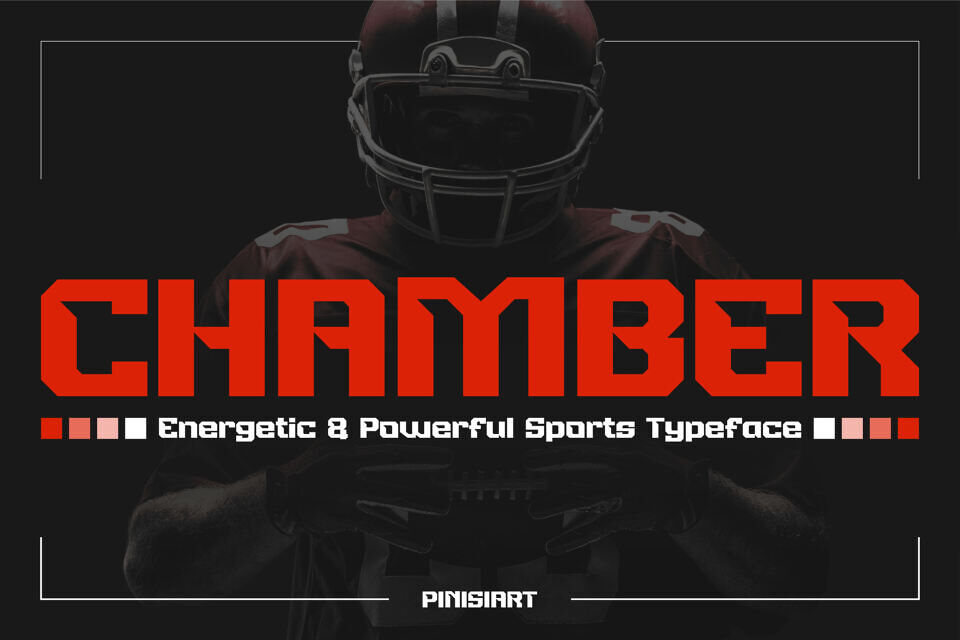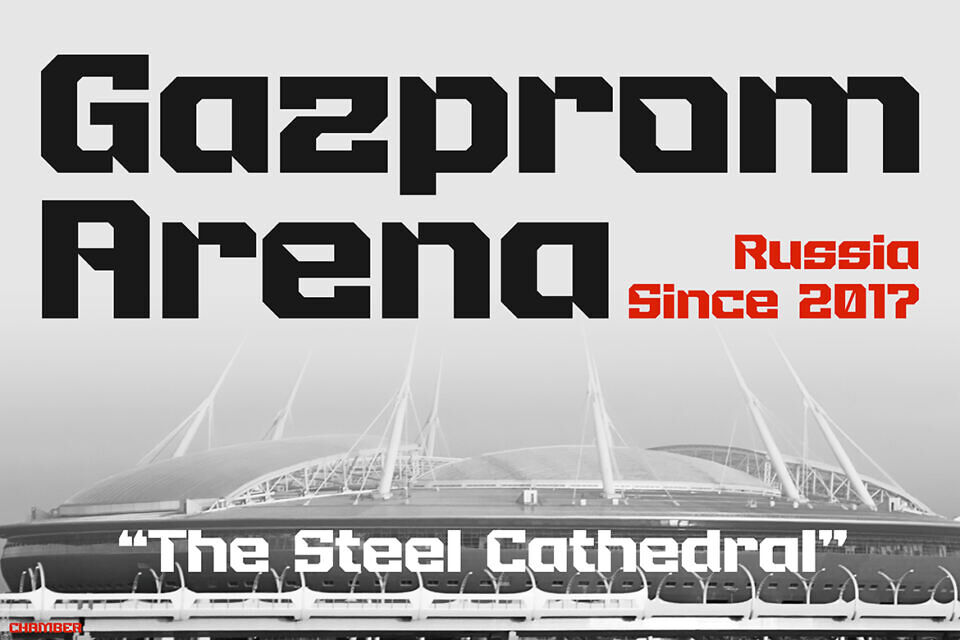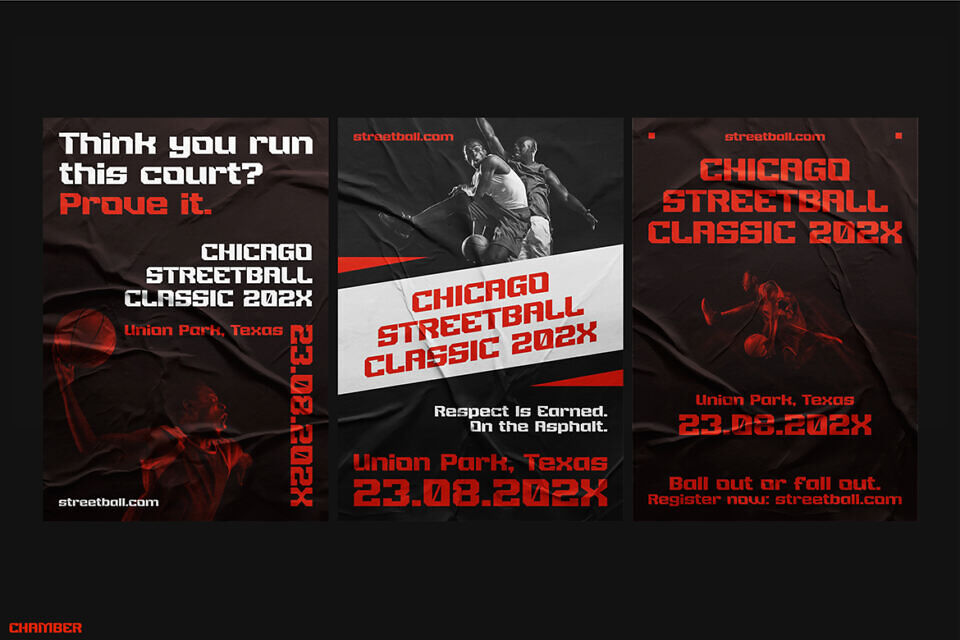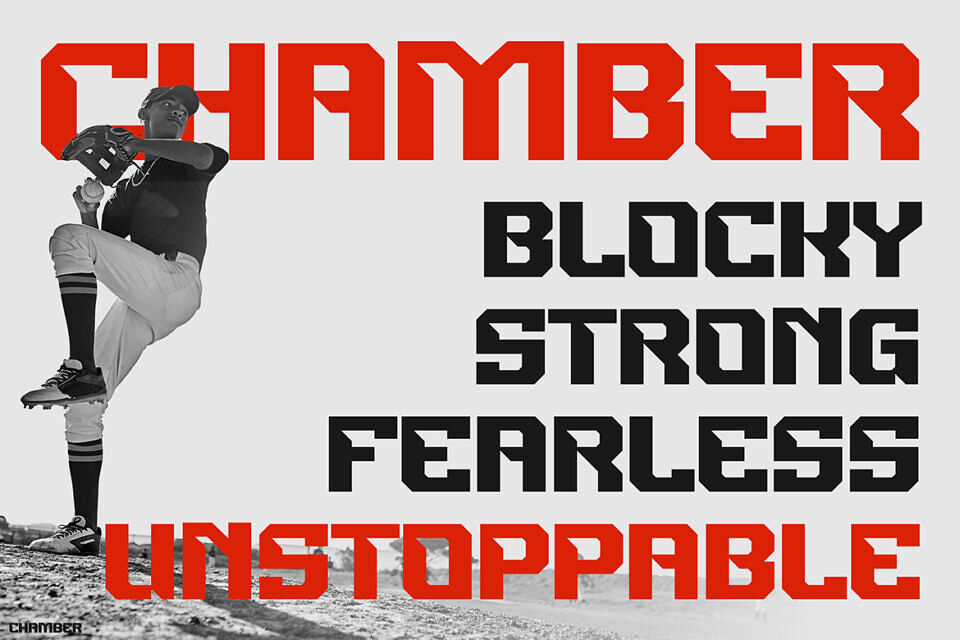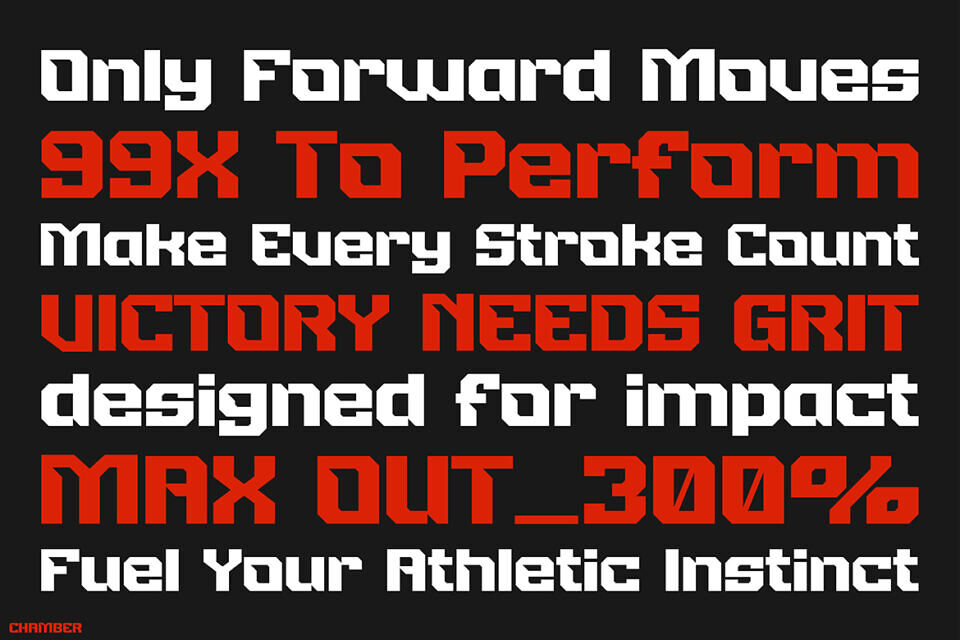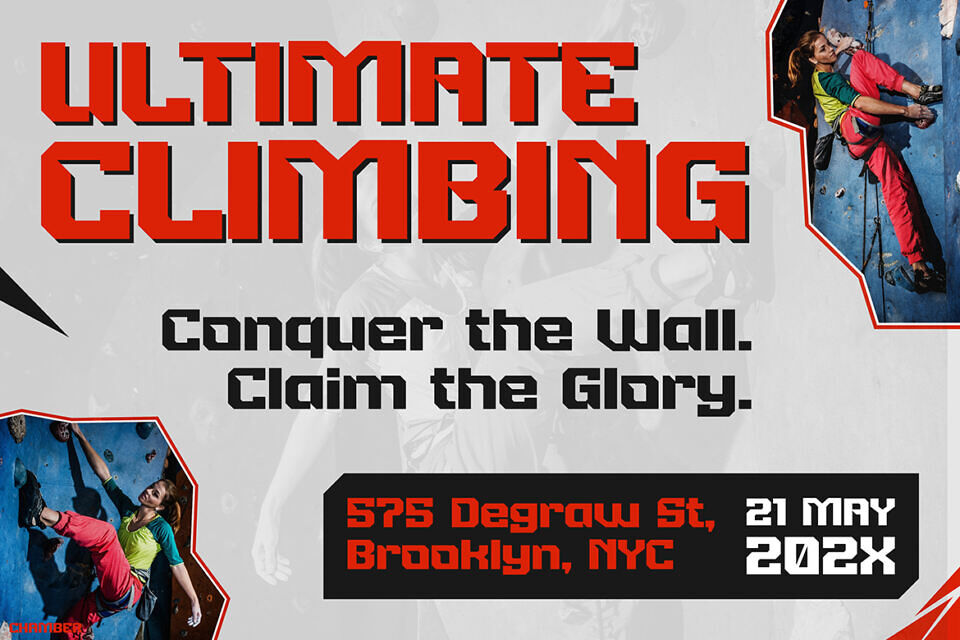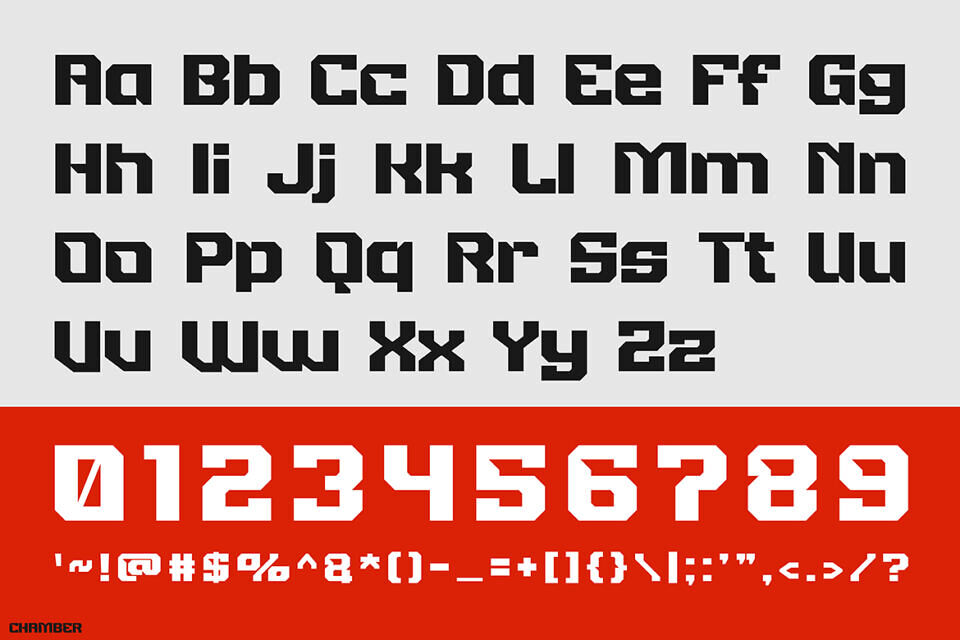
CHAMBER is a bold, modern sport font built for high-impact design. With sharp angles, wide proportions, and tight spacing, it radiates energy, power, and movement—perfect for jerseys, posters, gym branding, or digital media.
Its square, consistent structure ensures sharp readability while delivering an aggressive look ideal for fast-paced sports settings and motivational content.
Whether you’re designing for teams, fitness brands, esports, or athletic apparel, CHAMBER gives your message strength and clarity. Make every title pop and lead with intensity—CHAMBER brings unstoppable visual momentum to your next project.